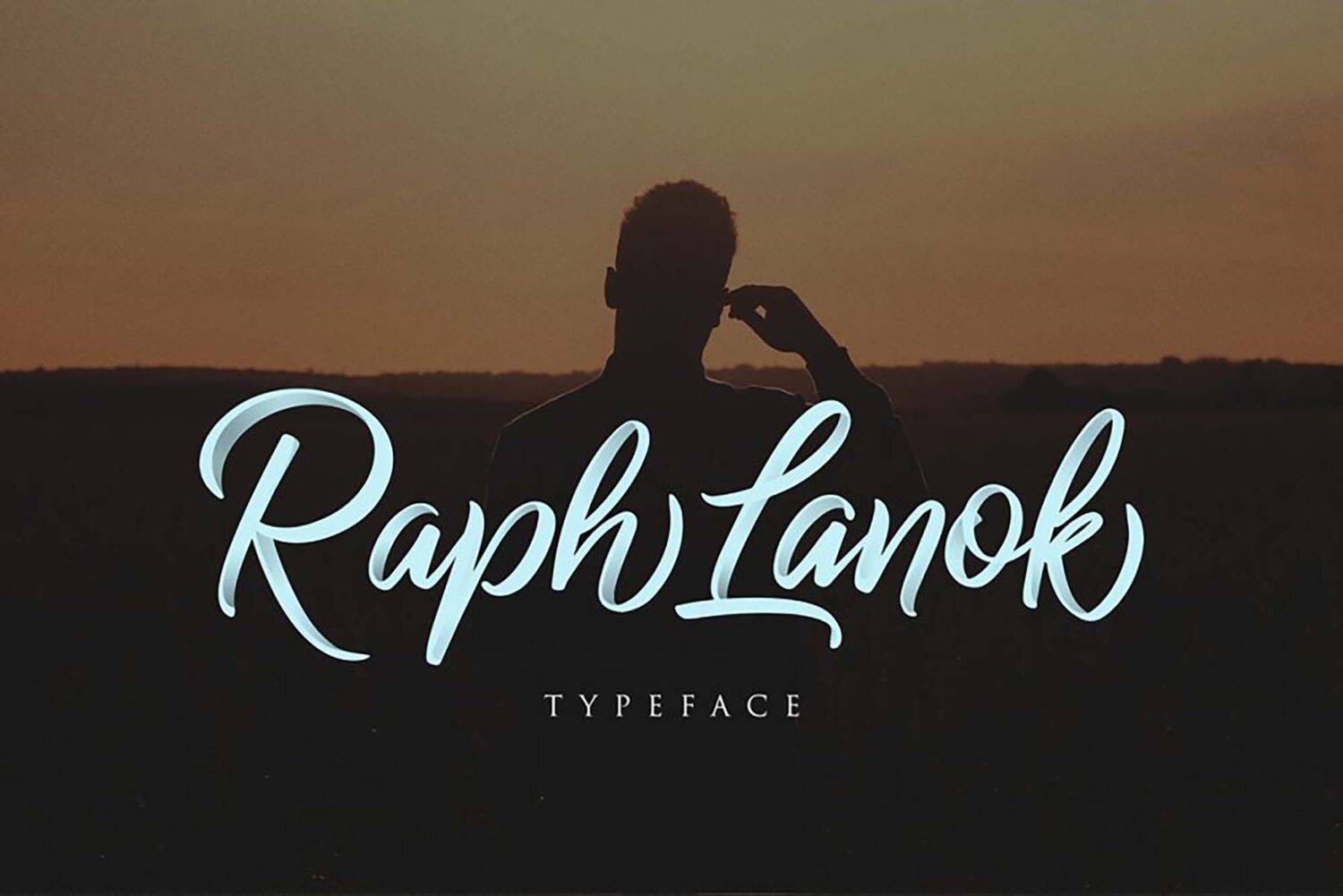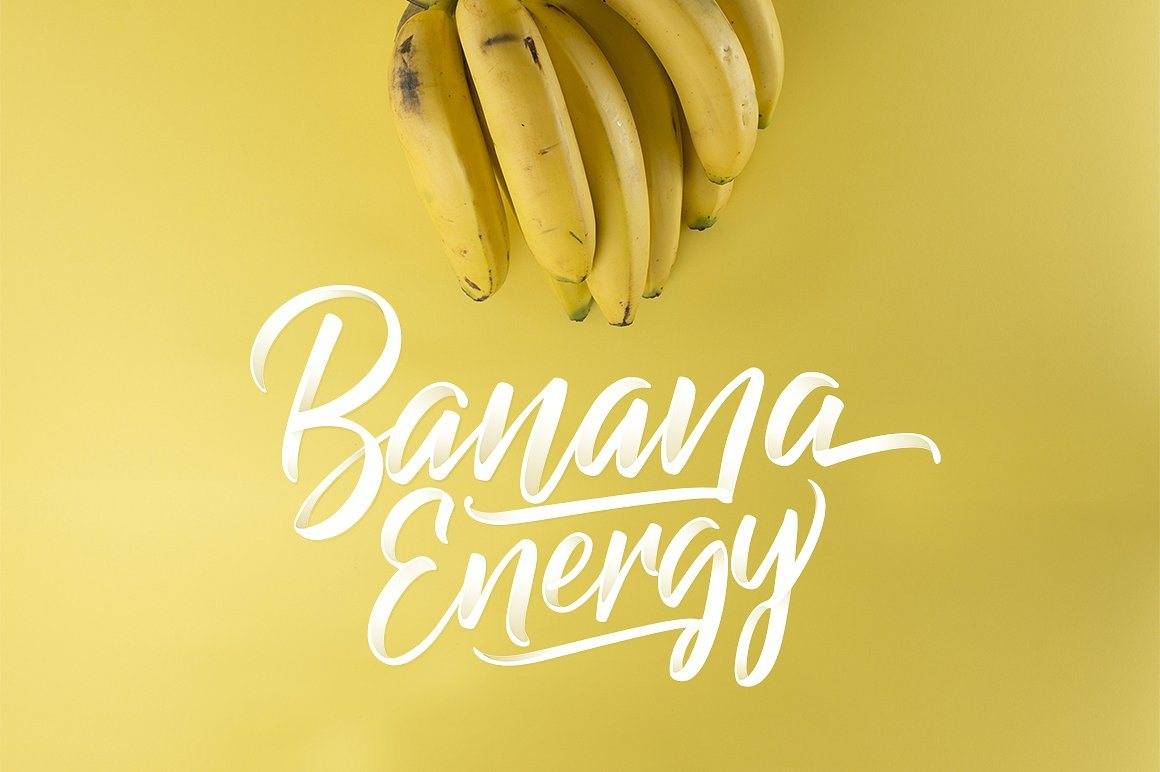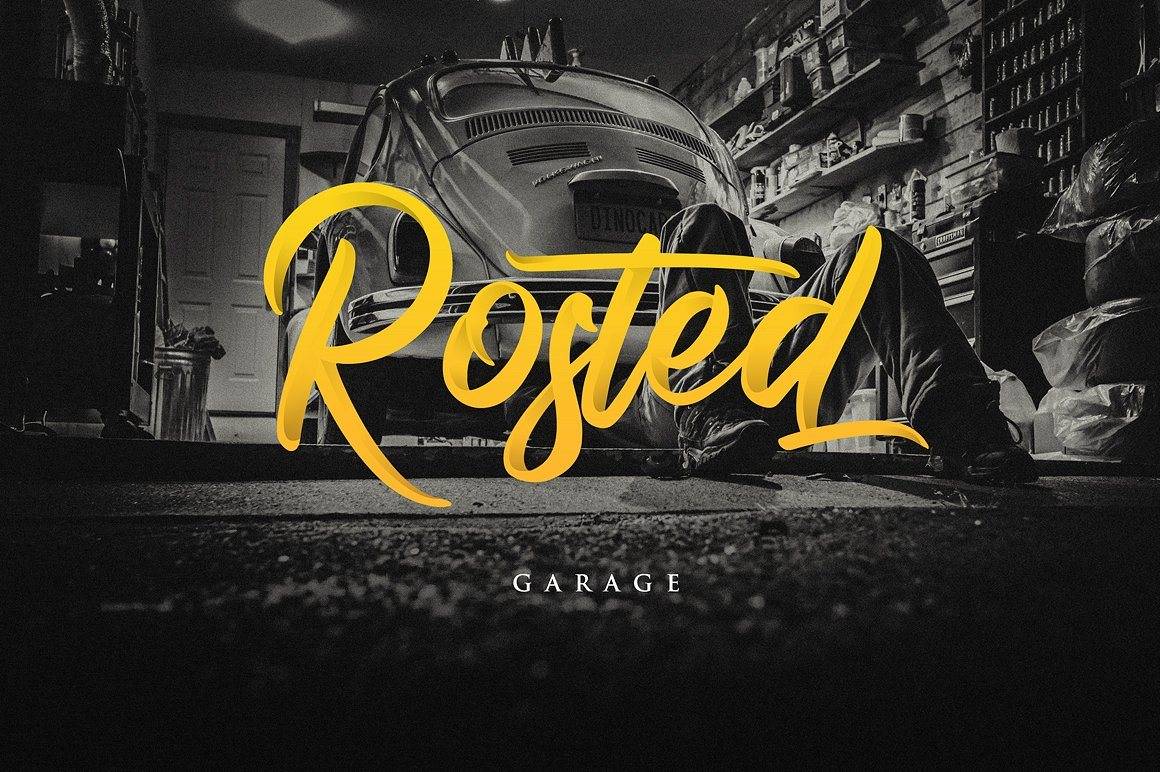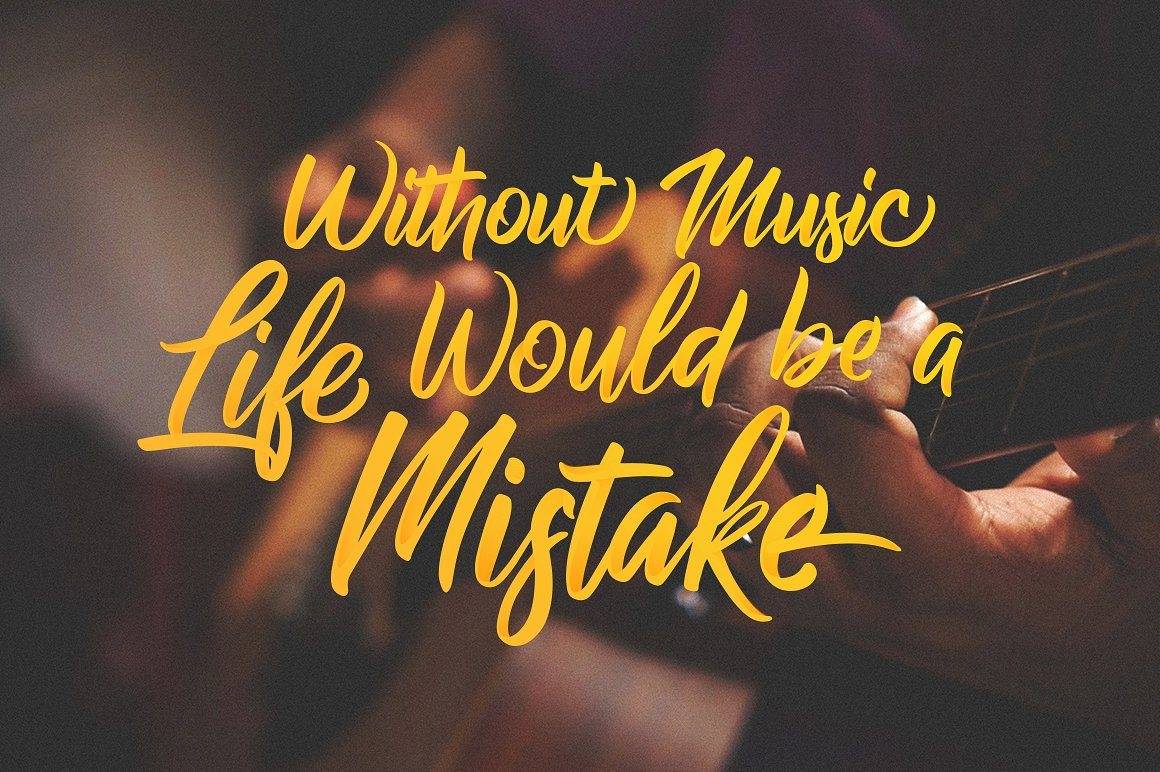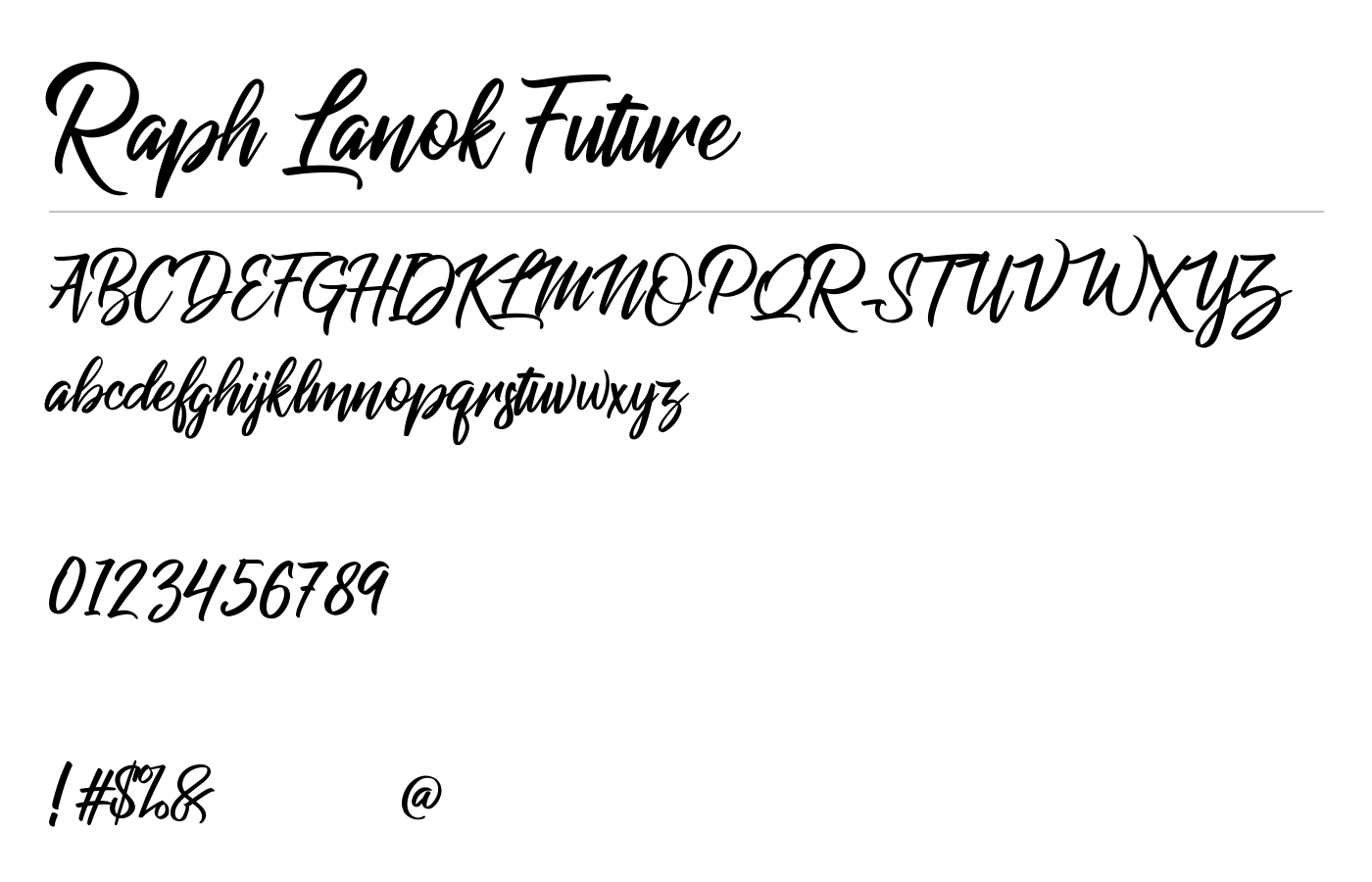
Raph Lanok Future is a stylish script font with a lively, hand-drawn feel characterized by smooth, flowing strokes and moderate contrast in thickness. Its elegant yet casual design makes it perfect for adding a personal touch to branding, invitations, and creative headlines where a friendly and modern flair is desired. This font shines in projects that seek to combine sophistication with approachability.
Raph Lanok Typeface
About Raph Lanok Typeface
| Font family | Raph Lanok Typeface |
| Release date | 2013-06-04 |
| Designer | Alit Suarnegara |